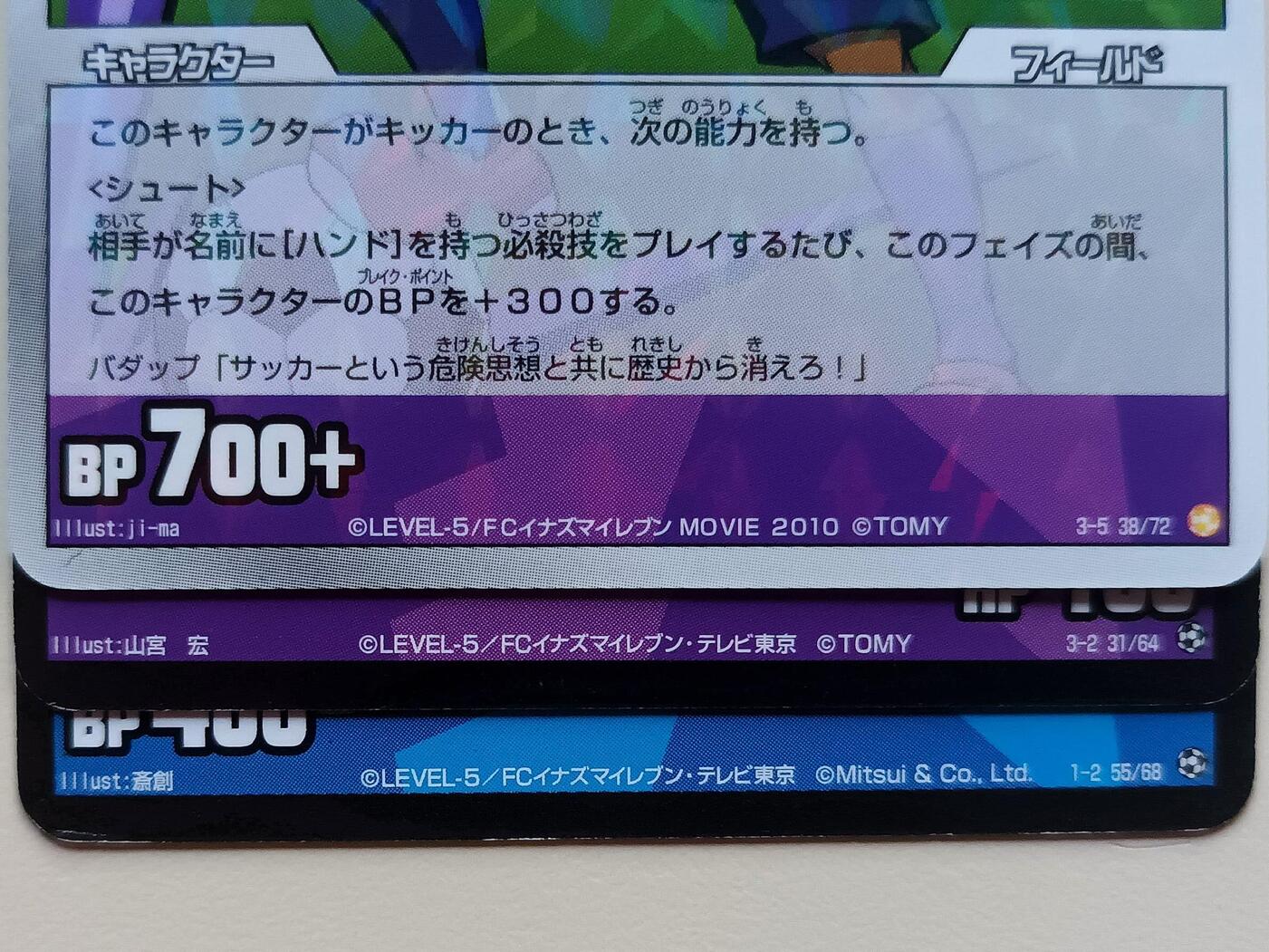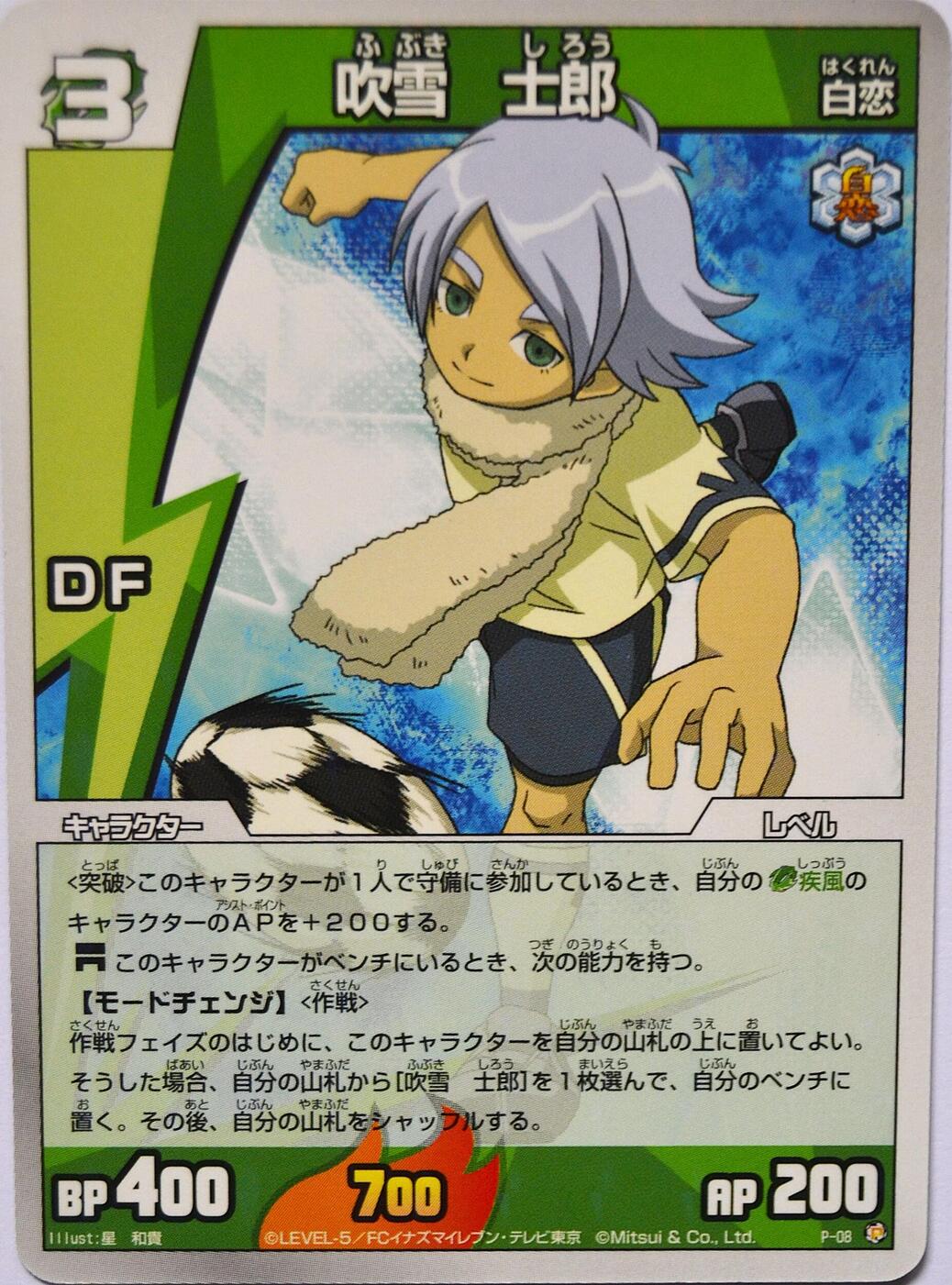
Need help finding this Inazuma Eleven TCG fonts.
Hi, I'm trying to find the fonts used in the japanese Trading Card Game of Inazuma Eleven (November 2008).
One of them is the one used for the copyright of the cards, which I believe is the same as the one used for the DF symbol on the middle left of the card, as well as for the actual text box and name of the cards.
I've come upon RixRak Sans, but it doesn't 100% match.
Also, I believe the font used for the big numbers and letters on the bottom and the one on the top left is Bolt, but it also isn't a total match it. At least the version I have.